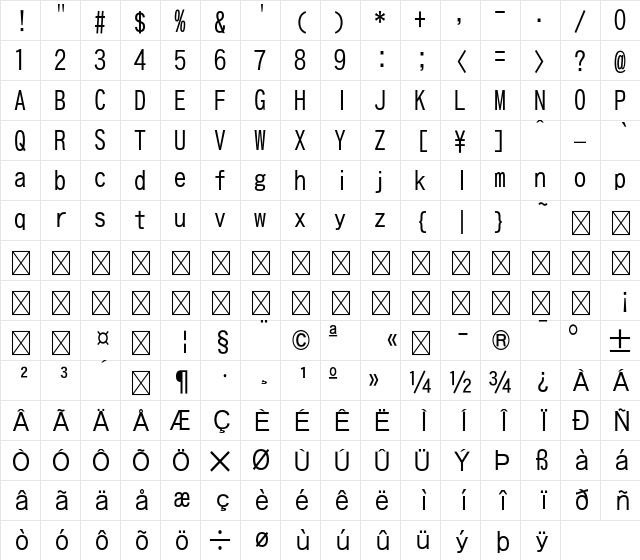
U-OTF MNewsG Upr L
Style: L
Designer: Mainichi Shimbun
Design Context for U-OTF MNewsG Upr
U-OTF MNewsG Upr is a composed and adaptable typeface that performs quietly and consistently across a wide range of design contexts.